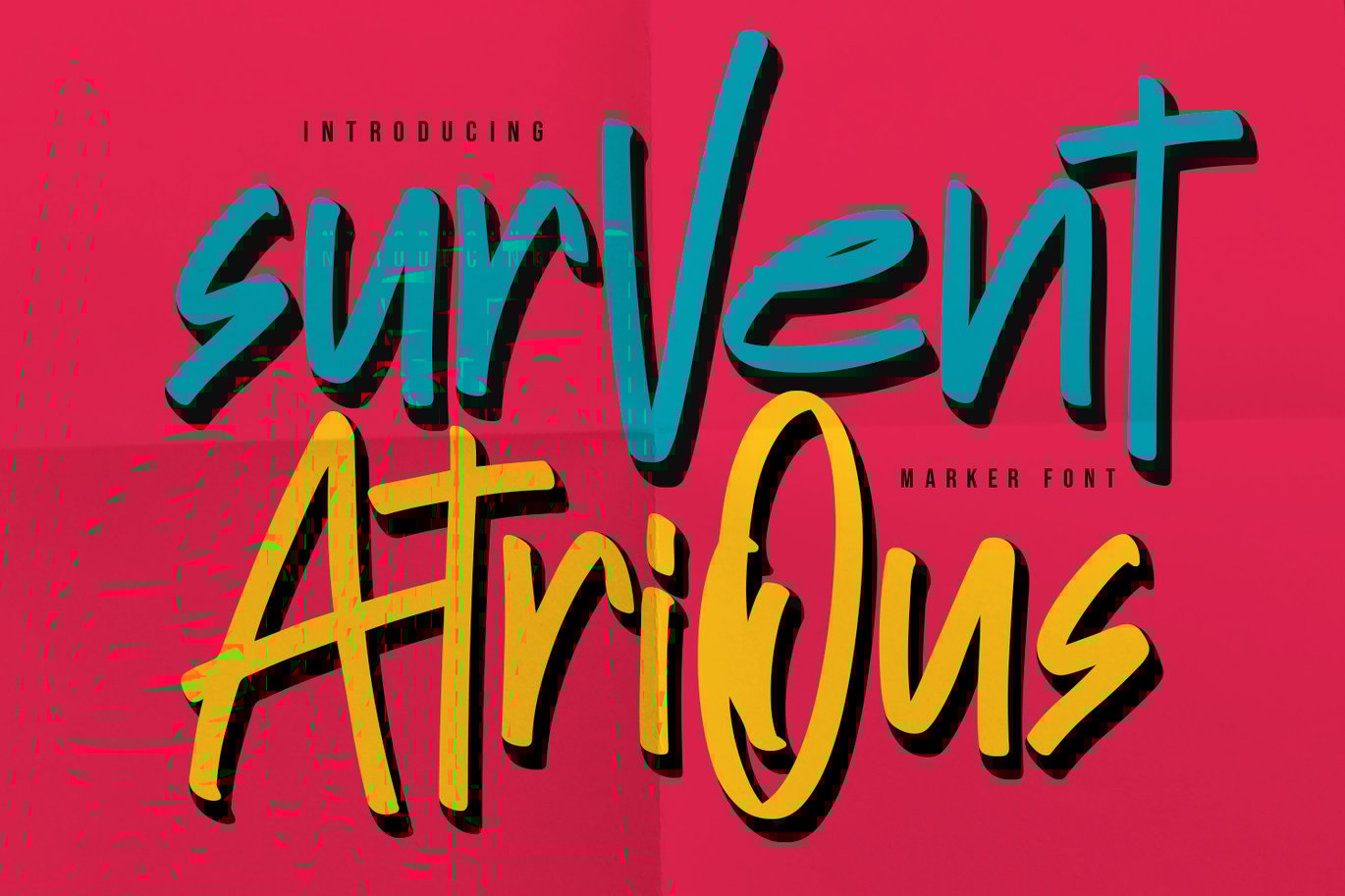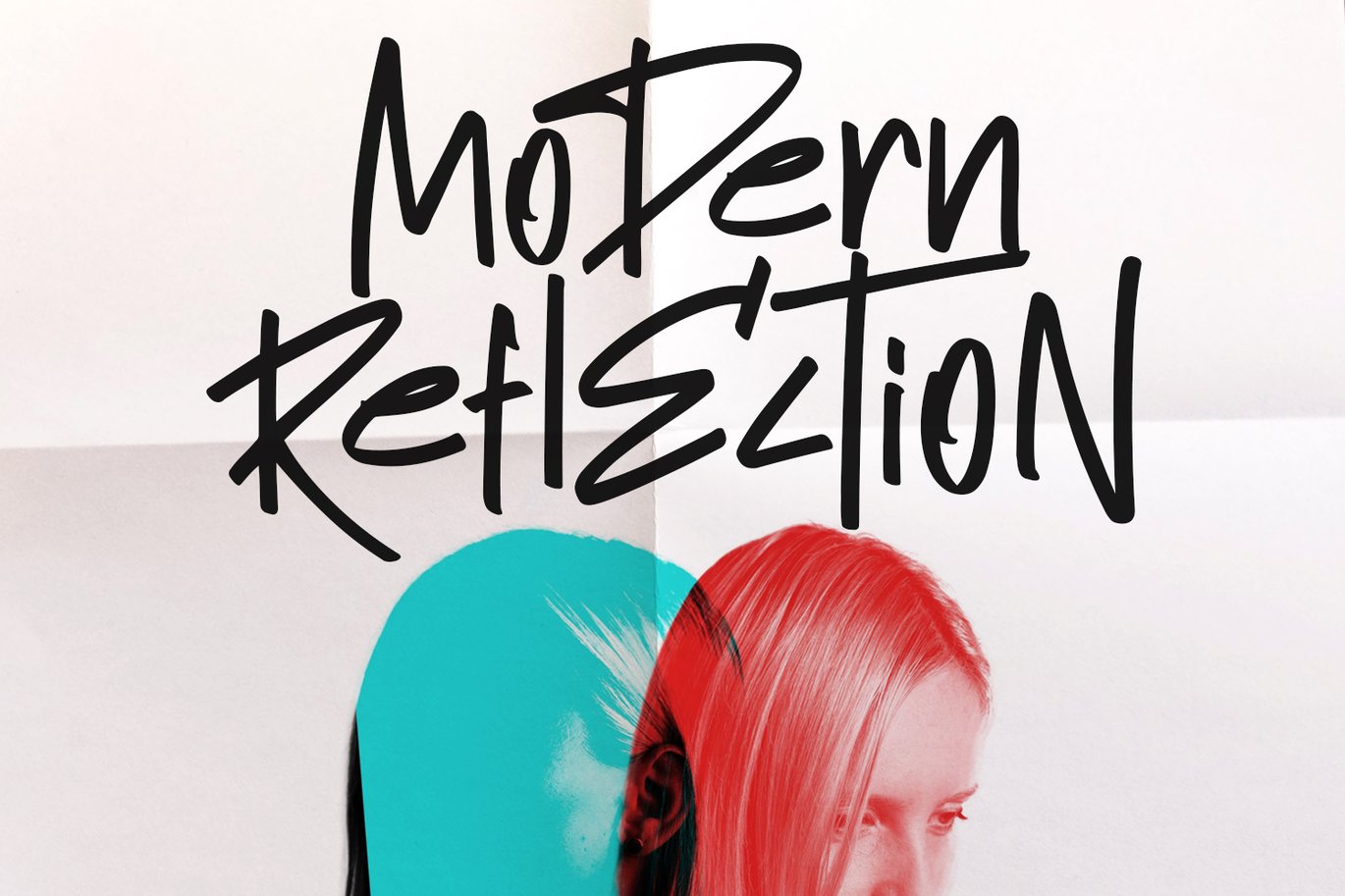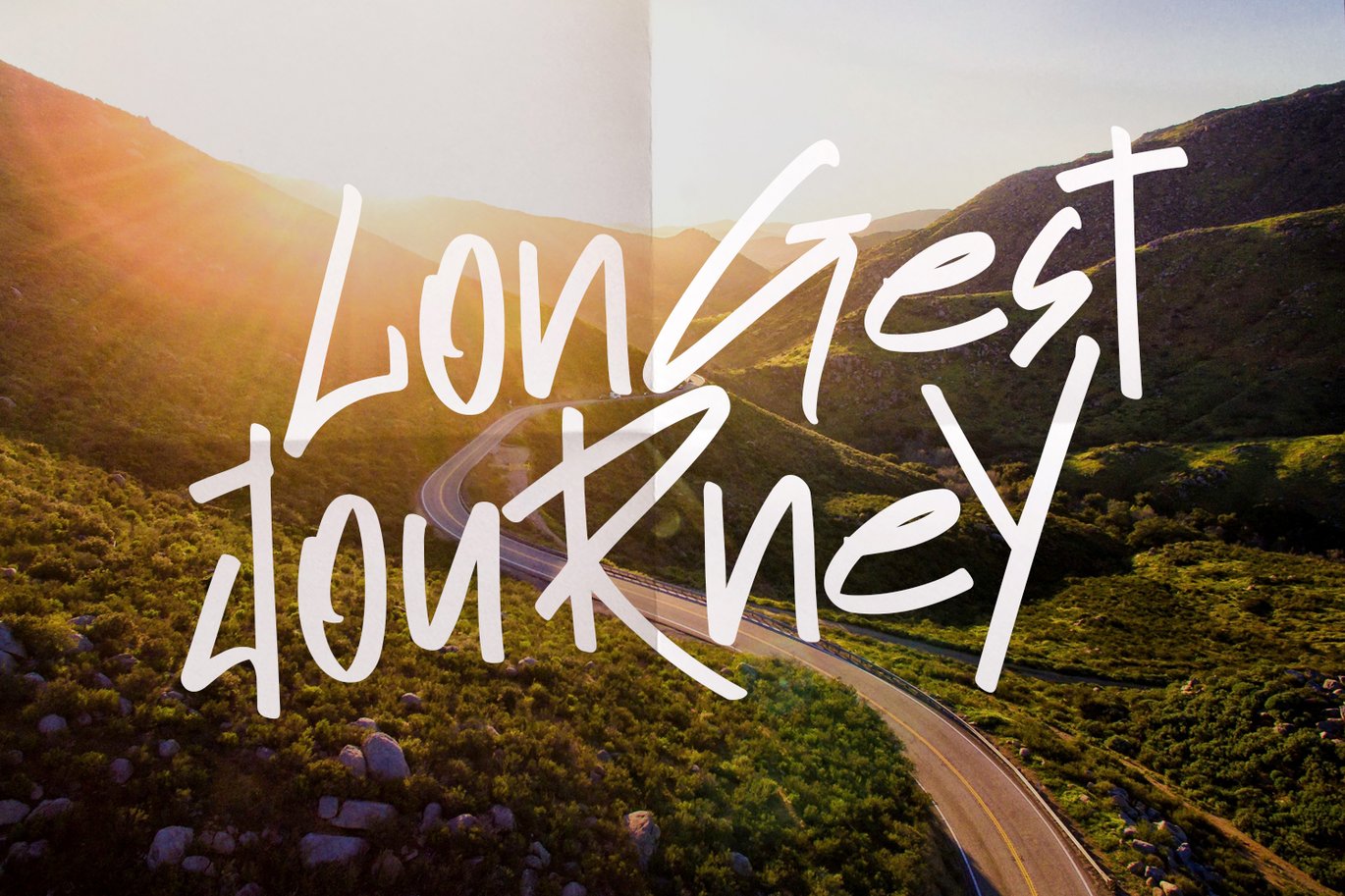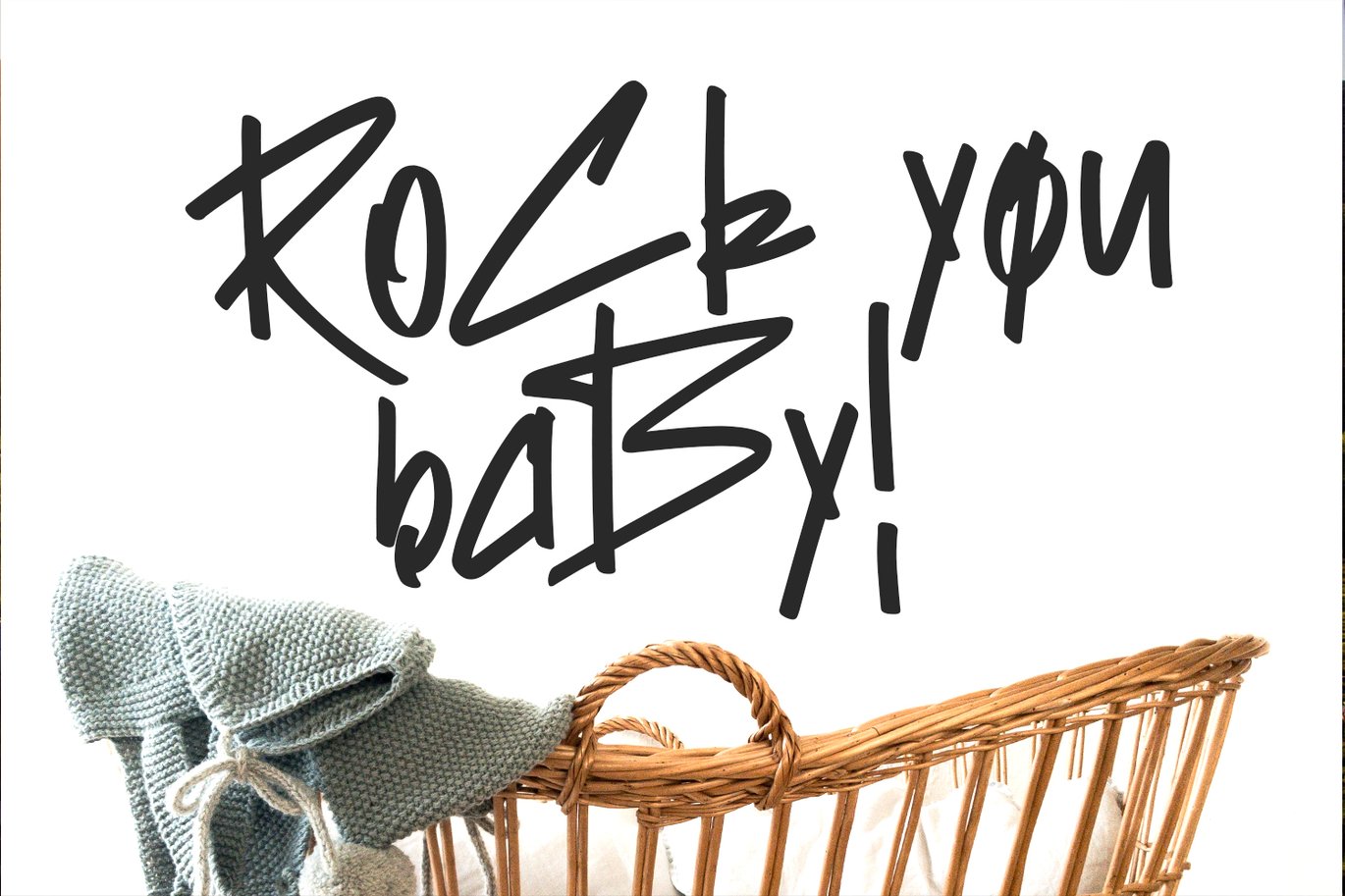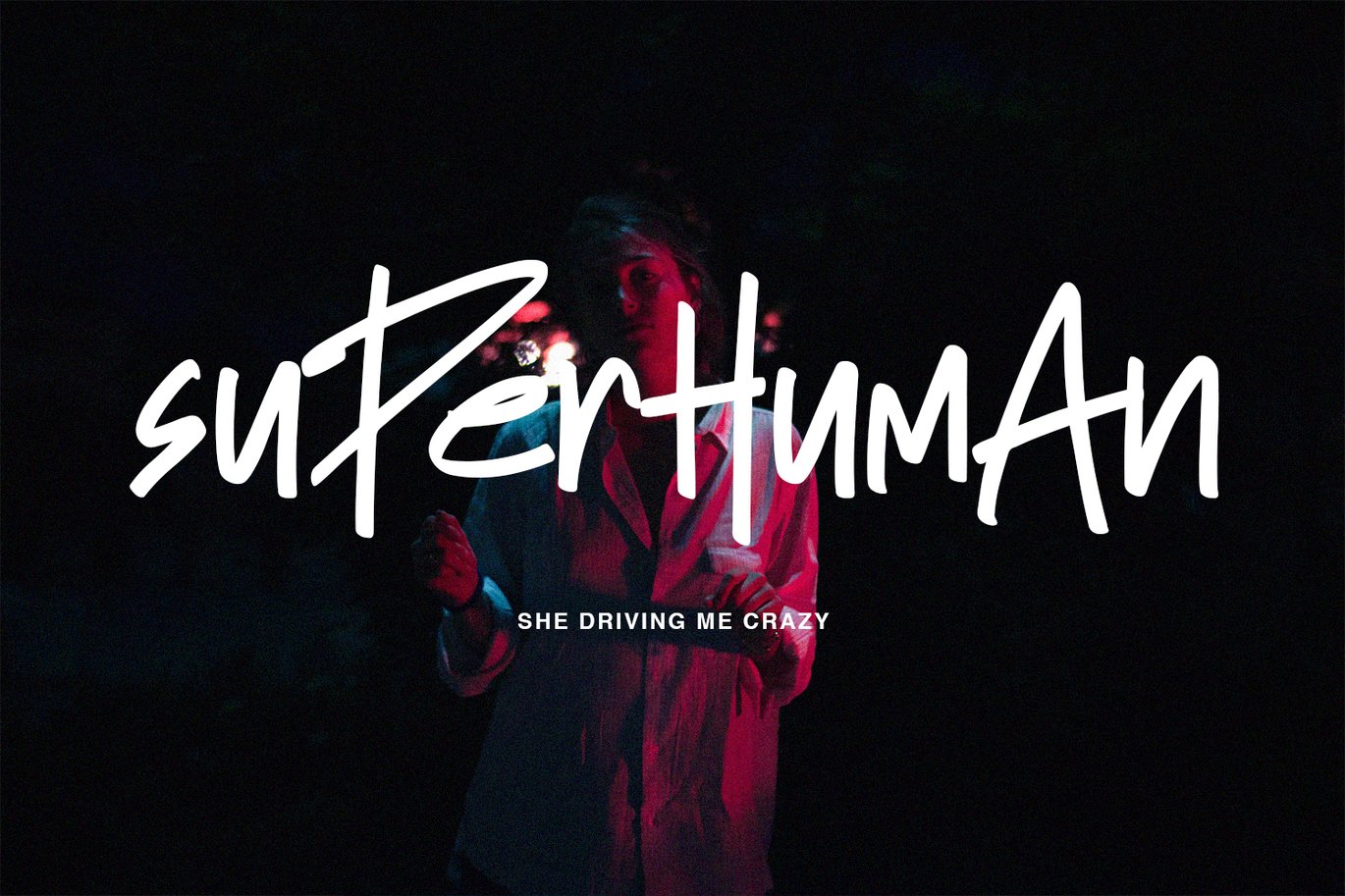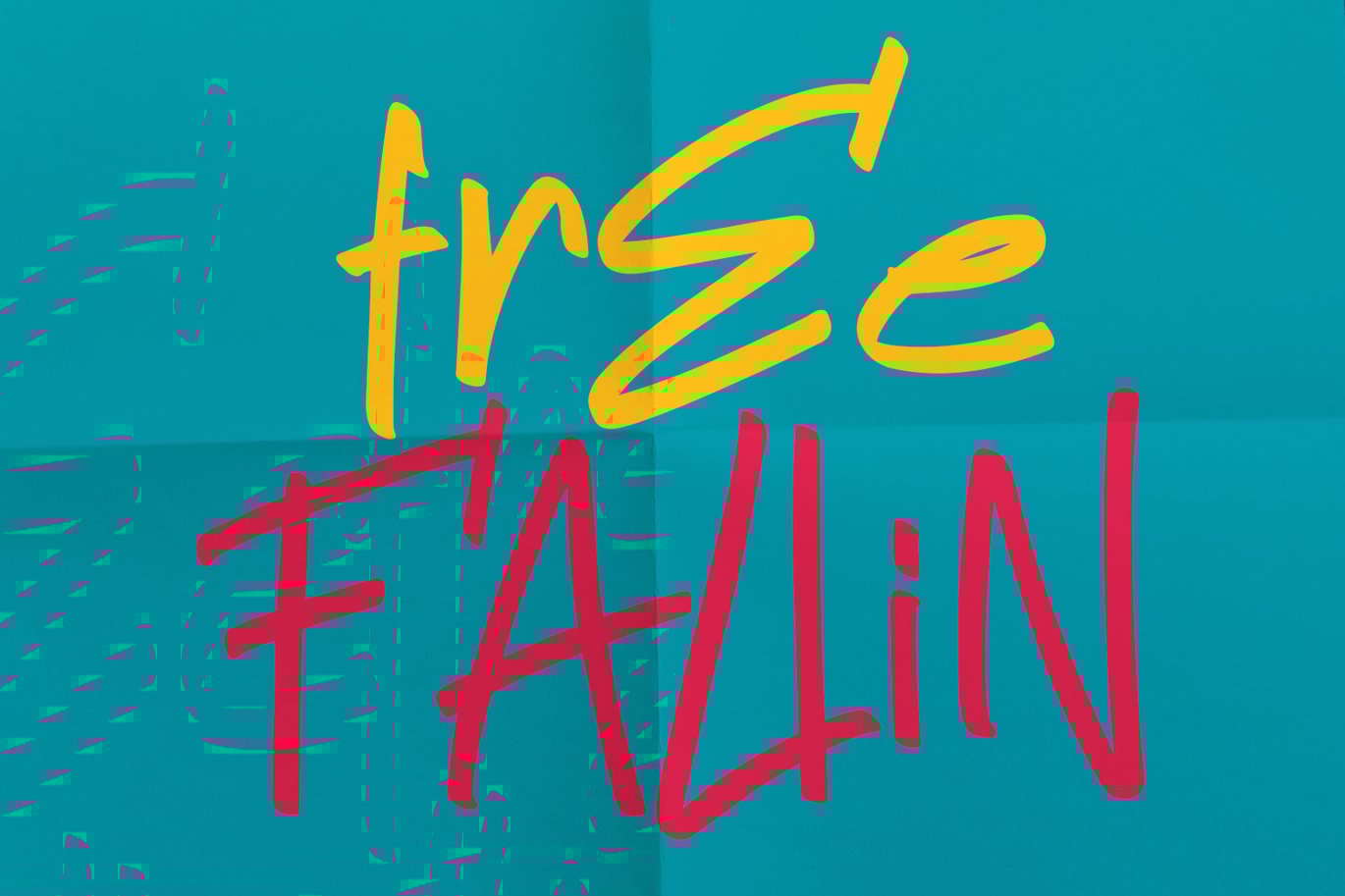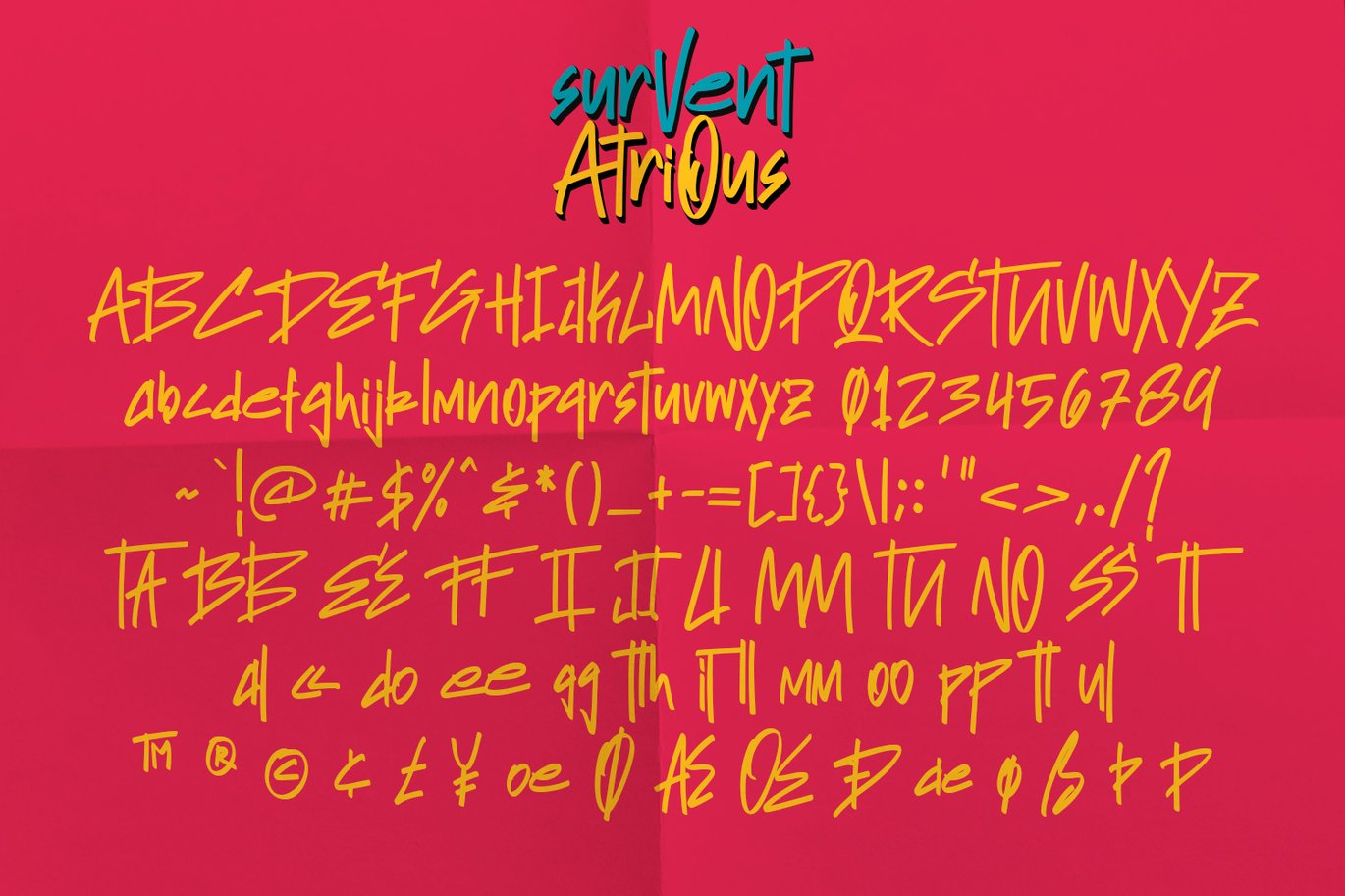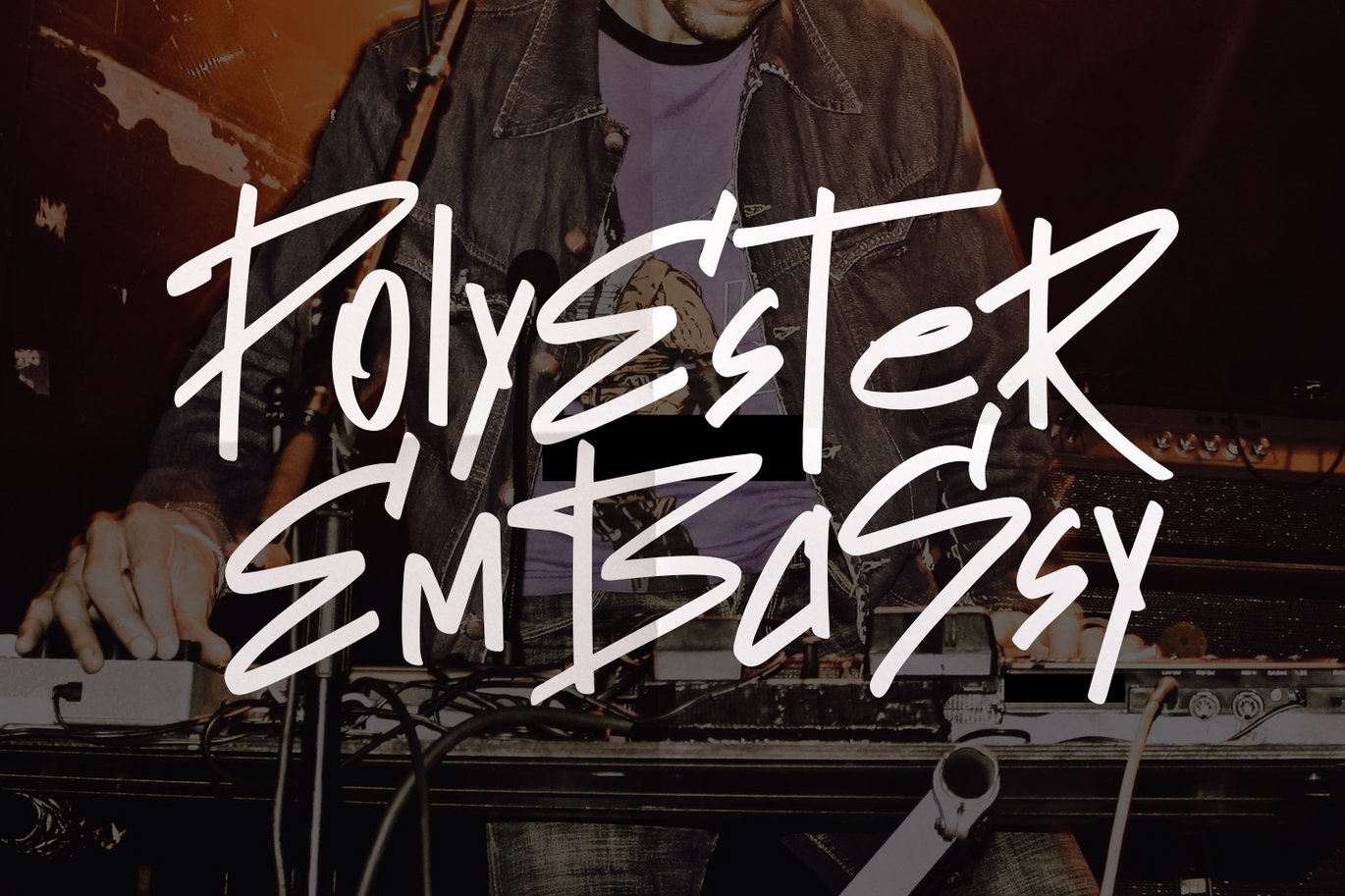
Survent Atrious Marker Font
I am happy to create Survent Atrious Marker Font. It has been drawn with a marker pen and a swift hand. “Survent Atrious” has intentionally overlapping letters to remind street style and give an underground look. “Survent Atrious” is perfectly suited to teenagers, stationery, aggressive/rebel design, logo, typography quotes, magazine or book cover, website header, clothing, branding, packaging design, wall painted tester and more.